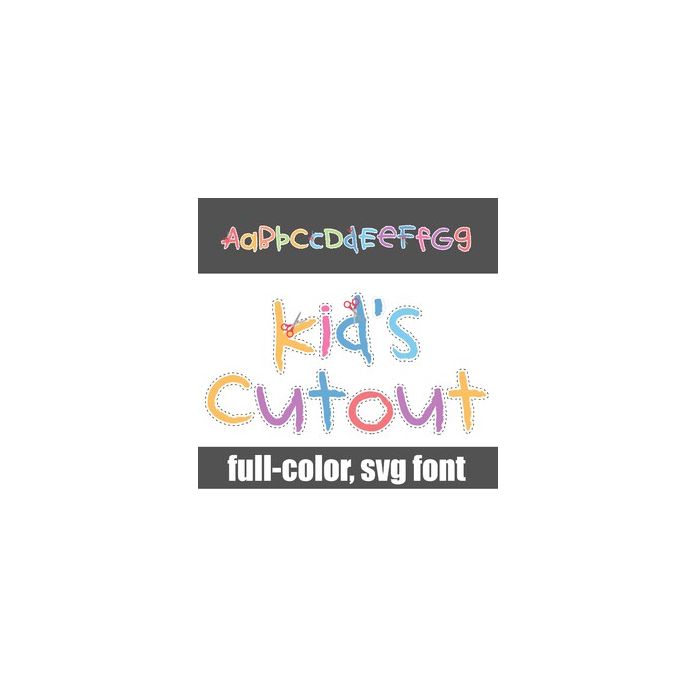
This full-color font features crayon-colored lettering with white backgrounds and scissors with dotted cut lines. There is an alt case with additional colors that you can access through your system or Silhouette's glyph map.